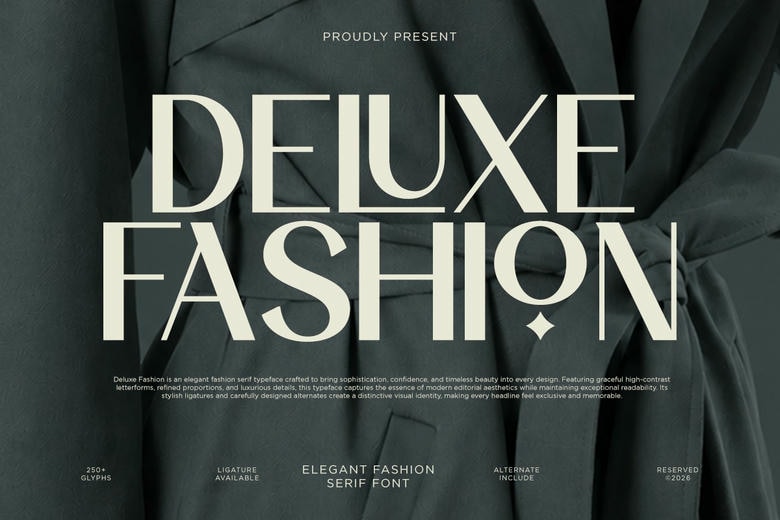
Deluxe Fashion Font
Deluxe Fashion is a modern luxury sans font that brings elegance, confidence, and a fresh feel to your projects. Its clean lines and balanced shapes create a sophisticated style for your work.
It is a great choice for fashion branding, luxury logos, beauty products, boutique packaging, cosmetics, editorial layouts, magazines, social media posts, lifestyle campaigns, and other high-end marketing materials.
Deluxe Fashion Sans Serif Font